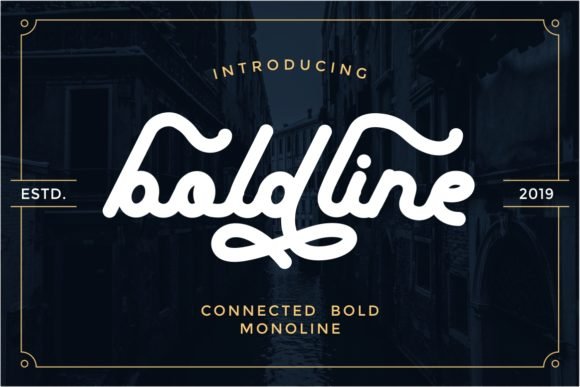
Unleash Your Creativity with the Boldline Font
Have you ever stared at a blank canvas, waiting for inspiration to strike? It’s a moment we’ve all experienced as creatives. The blank page, the empty screen, the silence of the studio – it’s a daunting feeling. But then, it hits you. A spark of creativity, a dash of imagination, and suddenly, your ideas start flowing. This is exactly what the Boldline Font is all about – sparking that creative fire within you.
The Boldline Font is a connected bold monoline typeface that exudes strength, class, and a touch of elegance. With its unique and striking design, it’s perfect for logos, branding, letterheads, invitations, quotes, prints, cards, and clothing brands. Whether you’re a seasoned designer or just starting out, this font is a valuable addition to your toolkit.
Boldline Font Key Features
- Unique Characteristics: The font features a unique blend of modern and vintage elements, with clean lines, geometric shapes, and subtle flair, making it perfect for creating eye-catching headlines and titles.
Boldline Font Review
Overall, I was quite excited to dive into the Boldline Font, and it did deliver on some fronts. ✨ One of its strongest features is its excellent readability. The font is well-suited for headings, titles, and large blocks of text, making it a great choice for publications and presentations.
Another aspect where Boldline shines is its versatility. ✨ It’s available in a wide range of weights and styles, allowing designers to experiment with different looks and feels. This is particularly useful for creating visually appealing and consistent branding across various platforms.
However, there are some areas where Boldline falls short. ⚠️ One of the main limitations is its lack of consistency in certain weights and styles. This can result in uneven text spacing and overall visual clutter.
Another concern is the font’s relatively limited character set. ⚠️ While it covers the most common languages, it might not be suitable for projects requiring extensive support for less common scripts.
Conclusion
While Boldline has its strengths, it’s essential to weigh these against its limitations. If you’re looking for a font with excellent readability and versatility, Boldline is a solid choice. However, if you require a more comprehensive character set or perfect consistency, you might want to explore other options.
Key Points:
- Excellent readability
- Wide range of weights and styles
- Lack of consistency in certain weights and styles
- Relatively limited character set
Tips for Getting the Most Out of Boldline Font
To maximize the effectiveness of Boldline Font, use it for headings and titles. It’s also a great font for creating a modern and sleek look in your designs.
Boldline Font is commonly used in:
- Modern and sleek designs
- Infographics and data visualizations
Alternatives to Boldline Font
Montserrat is a modern sans-serif font designed for digital use. It is ideal for headlines and titles due to its clean and geometric design. Montserrat is more versatile than Boldline Font, offering a range of weights and styles that can be used for body text as well. Montserrat has a slightly more rounded and friendly feel compared to the bold and edgy look of Boldline Font.
Inter is a highly legible sans-serif font designed for digital use. It is perfect for body text due to its clear and straightforward design. Inter is more neutral and clean compared to Boldline Font, which makes it a great choice for documents and articles where readability is crucial. Inter lacks the bold and eye-catching feel of Boldline Font, but it excels in providing a comfortable reading experience.